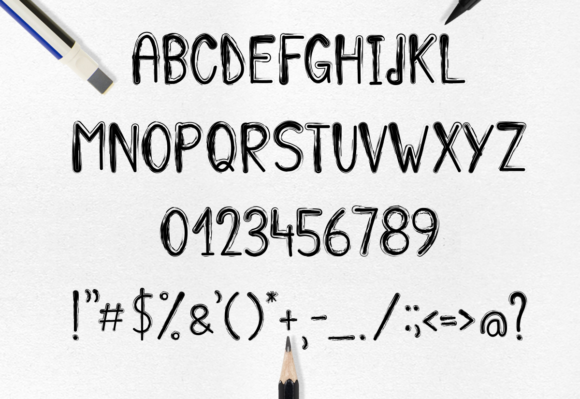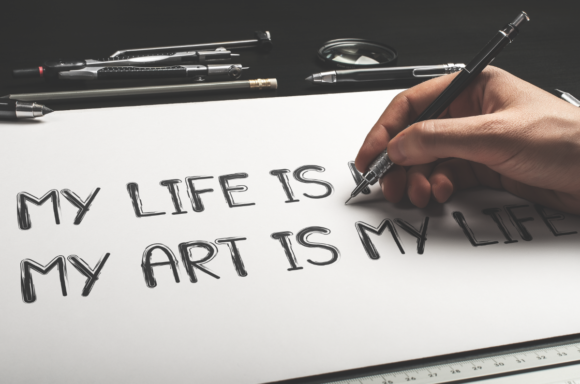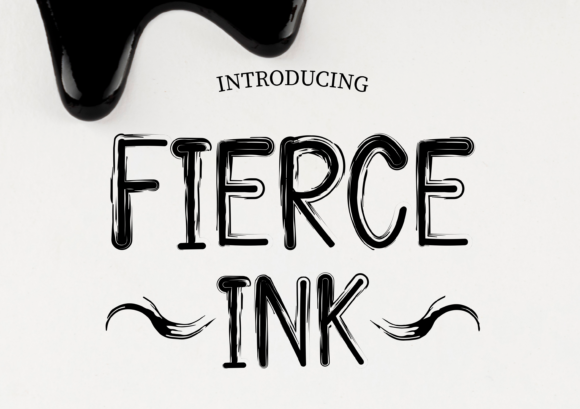
Fierce Ink Font: Elevate Your Designs with a Cool, Brushed, and Simple Display Font
Are you tired of using the same old fonts in your designs? Look no further than Fierce Ink Font, a cool, brushed, and simple display font that’s sure to take your creations to the next level. With its unique blend of edginess and elegance, Fierce Ink is an incredibly versatile font that can be used for a wide range of projects, from bold headlines to stylish logos.
The Characteristics of Fierce Ink Font
Fierce Ink Font is a brushed display font that features a distinctive, hand-crafted look. Its bold strokes and rough texture give it a rugged, edgy feel that’s perfect for designs that need a bit of attitude. Despite its bold appearance, Fierce Ink is surprisingly simple to read, making it a great choice for headlines, titles, and other applications where you want to make a statement.
The Benefits of Using Fierce Ink Font
So why should you choose Fierce Ink Font for your next design project? Here are just a few benefits of using this amazing font:
- Versatility: Fierce Ink Font is incredibly versatile, and can be used for a wide range of projects, from logos and headlines to posters and social media graphics.
- Uniqueness: With its distinctive brushed texture and bold strokes, Fierce Ink Font is sure to stand out from the crowd and grab attention.
- Ease of use: Despite its bold appearance, Fierce Ink Font is surprisingly simple to read, making it a great choice for designs where you need to communicate a message quickly and clearly.
- Elegance: Fierce Ink Font has a certain elegance to it, making it perfect for designs that need a touch of sophistication.
How to Use Fierce Ink Font in Your Designs
So how can you use Fierce Ink Font in your designs? Here are a few ideas to get you started:
- Headlines and titles: Fierce Ink Font is perfect for bold headlines and titles that need to grab attention.
- Logos and branding: With its unique texture and bold strokes, Fierce Ink Font is a great choice for logos and branding projects that need to stand out.
- Posters and flyers: Fierce Ink Font is a great choice for posters and flyers that need to make a bold statement.
- Social media graphics: Fierce Ink Font can add a touch of elegance and sophistication to your social media graphics.
Tips for Getting the Most Out of Fierce Ink Font
Here are a few tips for getting the most out of Fierce Ink Font:
- Experiment with different colors: Fierce Ink Font looks great in a wide range of colors, so don’t be afraid to experiment and find the perfect hue for your design.
- Play with texture: Fierce Ink Font has a distinctive texture, but you can also experiment with adding other textures and effects to create a unique look.
- Use it sparingly: Fierce Ink Font is a bold font, so use it sparingly to avoid overwhelming your design.
Fierce Ink Font is a cool, brushed, and simple display font that’s sure to elevate your designs to the next level. With its unique blend of edginess and elegance, Fierce Ink is an incredibly versatile font that can be used for a wide range of projects. Whether you’re a designer, crafter, or DIY enthusiast, Fierce Ink Font is a must-have addition to your font library.